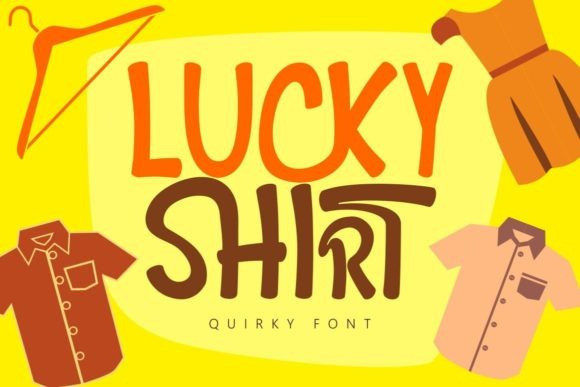
Lucky Shirt Font
Lucky Shirt Display Font is a cool and urban styled display font. This font is suitable for designs such as t-shirts, sportswear, logos, advertisements, clothing, and more.